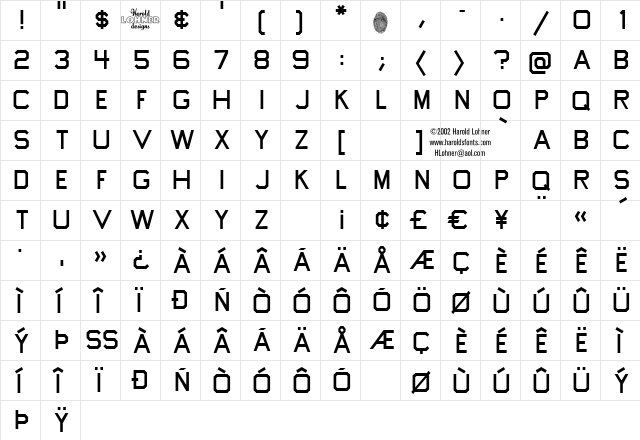
Tapeworm Regular
Tapeworm Regular Font Details
Design Context for Tapeworm Typeface
Tapeworm is a composed and adaptable typeface that performs quietly and consistently across a wide range of design contexts.